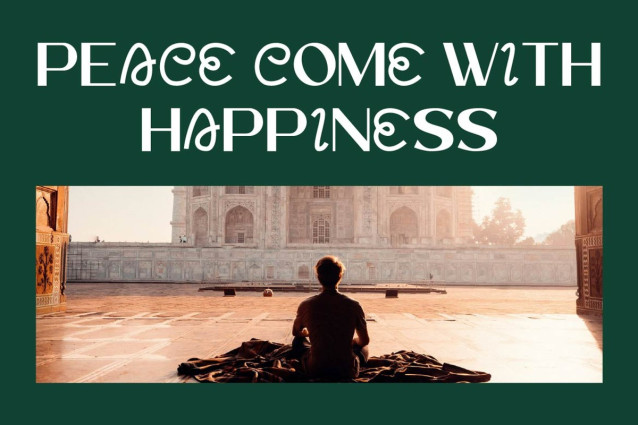
Yakuya Font
Yakuya Font is a modern sans serif font that blends creativity with luxurious elegance. Featuring clean lines, refined curves, and distinctive character shapes, Yakuya is designed to bring a premium feel to logos, fashion branding, product packaging, editorials, and high-end digital projects.